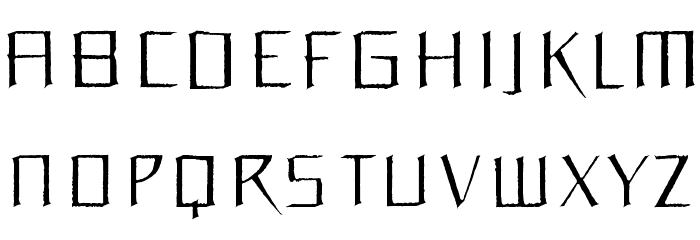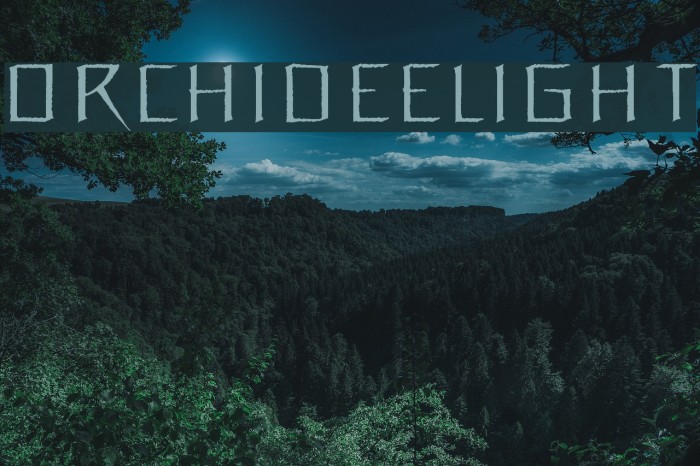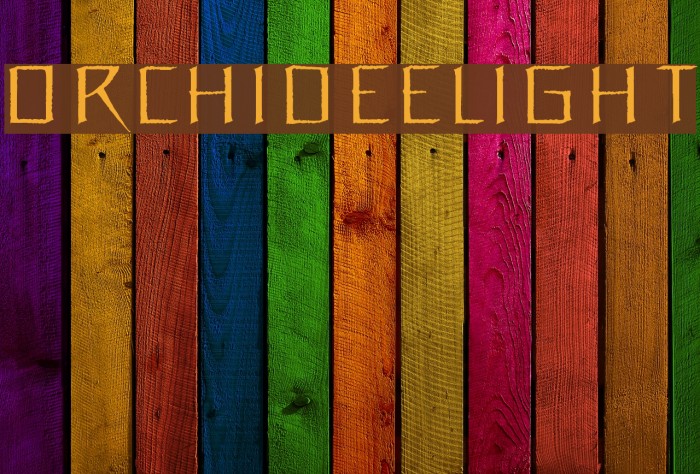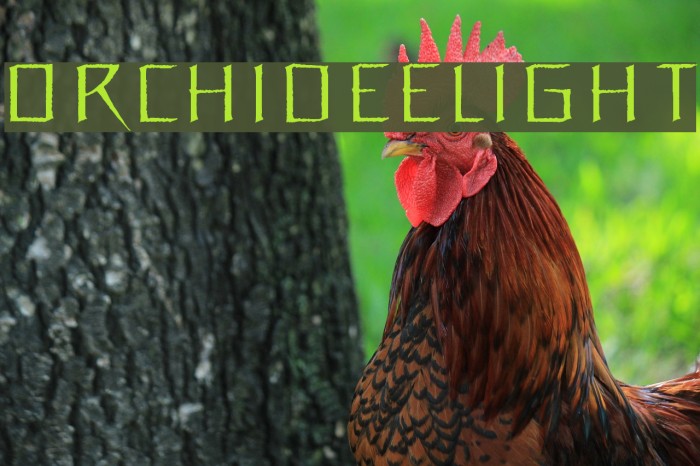
OrchideeLight Font
This font features a unique and edgy design with sharp, angular strokes that give it a distinct and modern appearance. The uppercase letters are bold and commanding, while the lowercase letters maintain a consistent style that complements the overall aesthetic. The numbers are designed with a boxy, geometric look that adds to the font's contemporary feel. Special characters are included, maintaining the same sharp and angular design. This font is ideal for projects that require a bold and striking visual impact.
A modern, edgy font with sharp, angular strokes and a bold appearance.
- Proposed Projects: Ideal for branding, posters, album covers, and any project needing a bold, modern look.